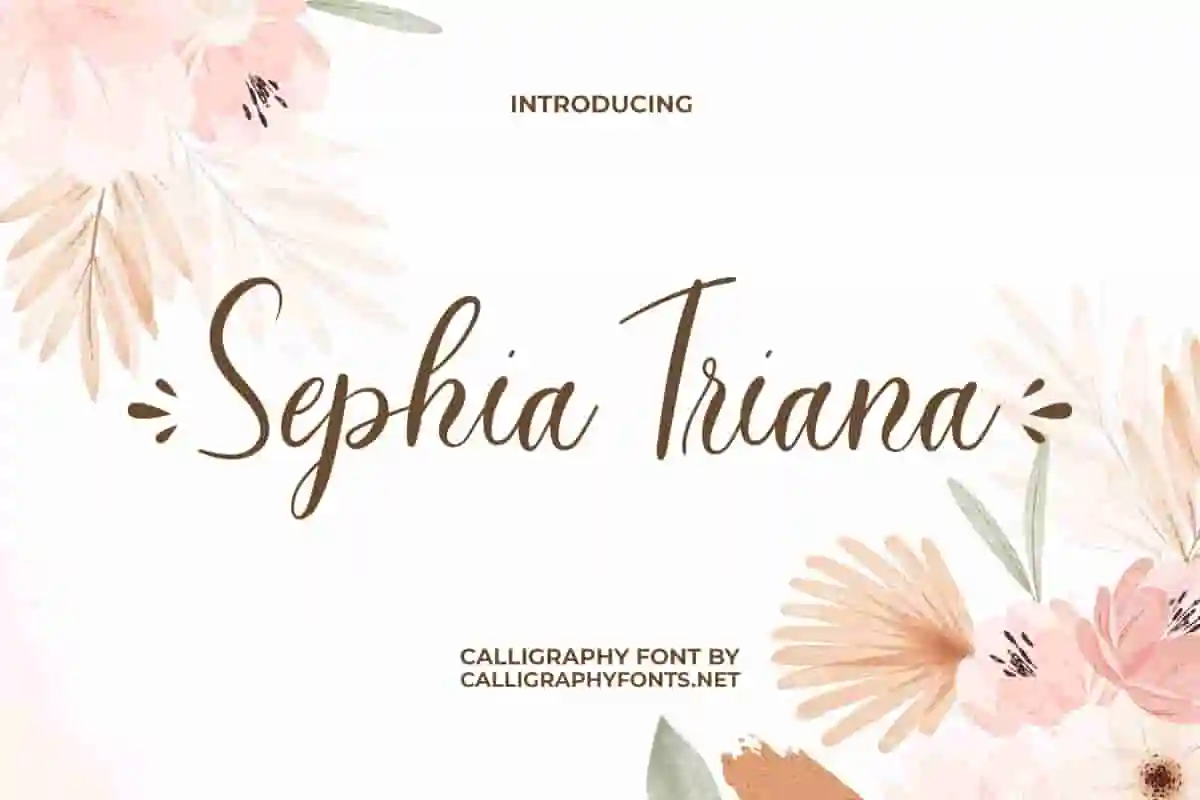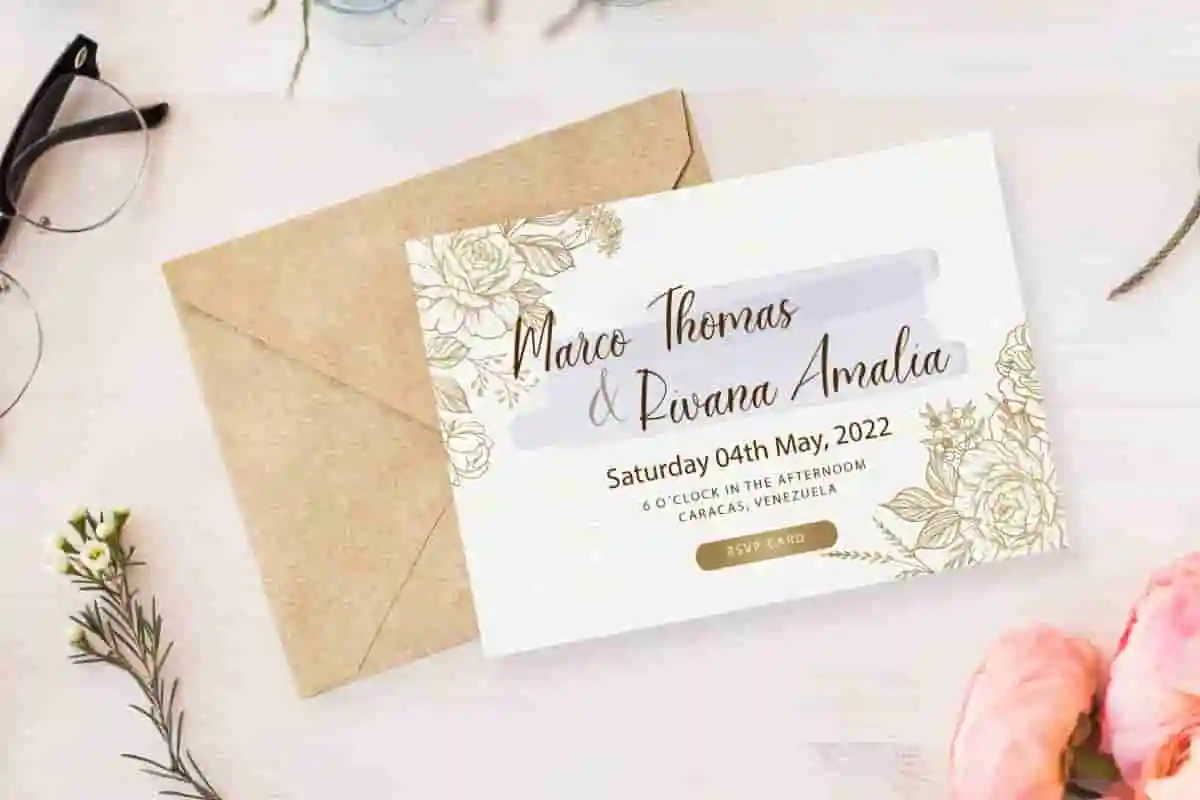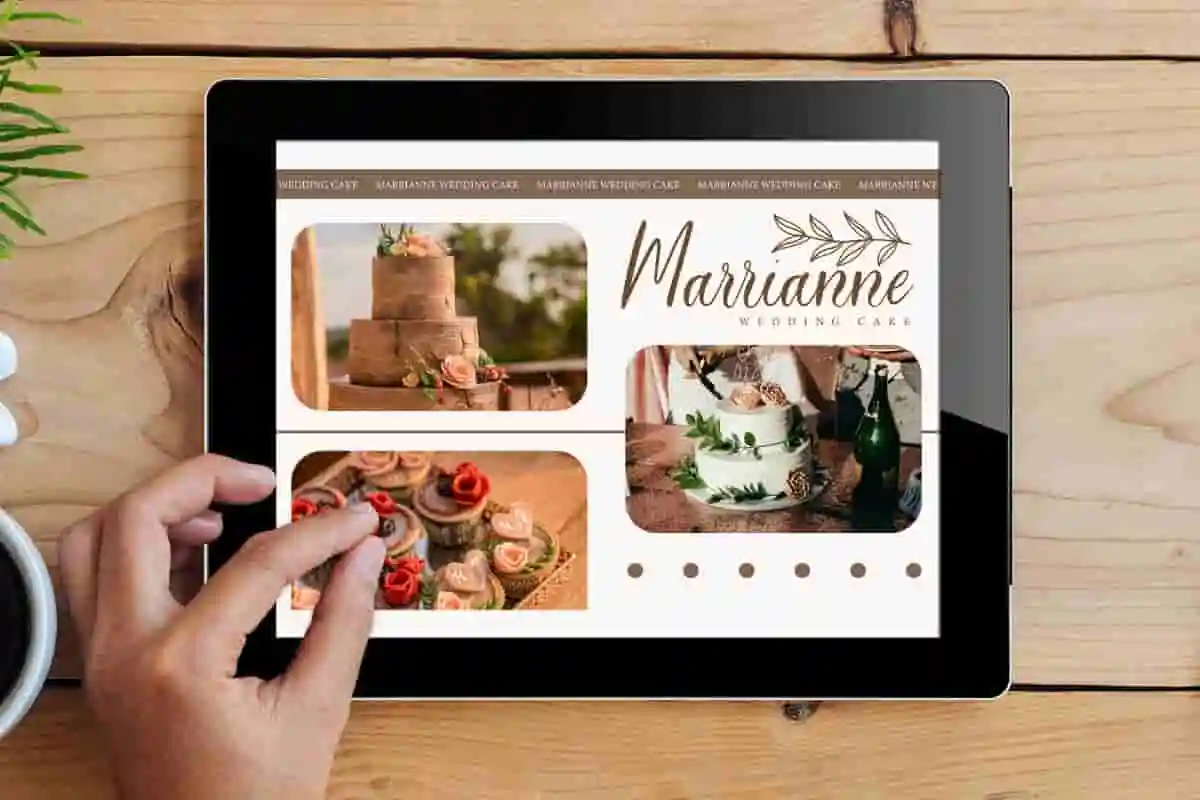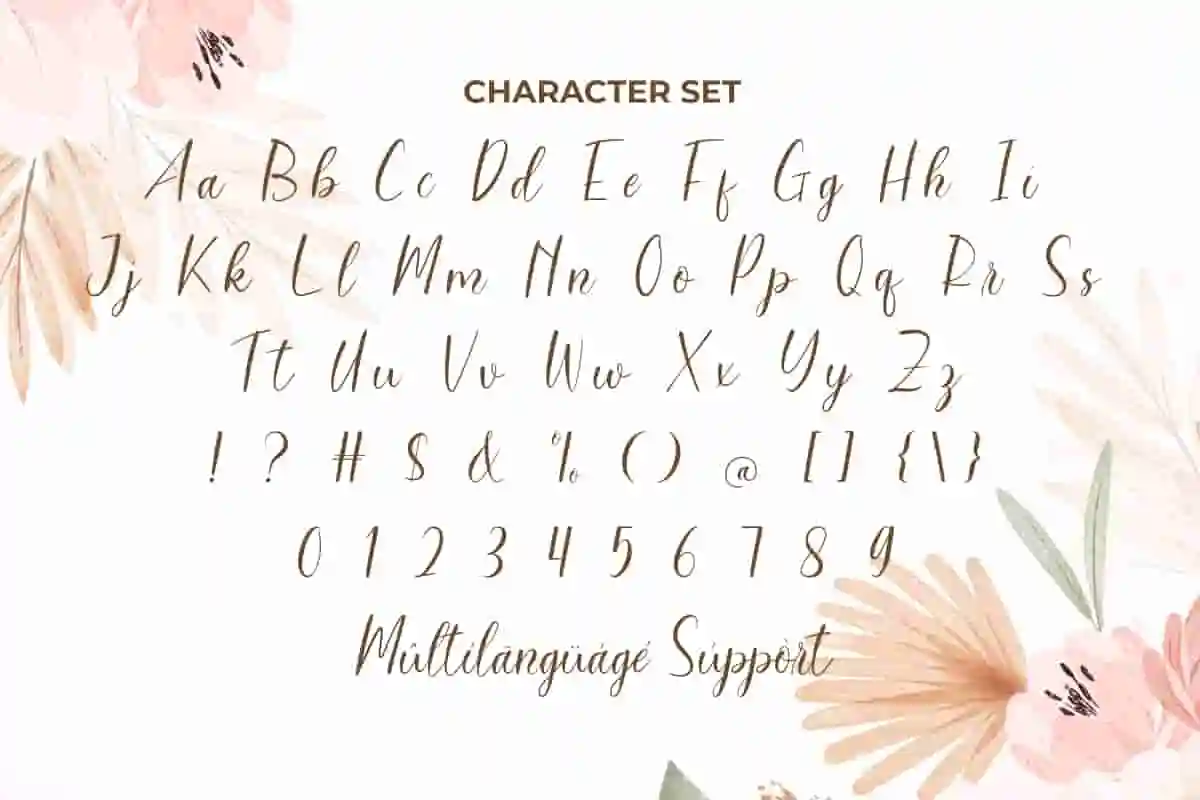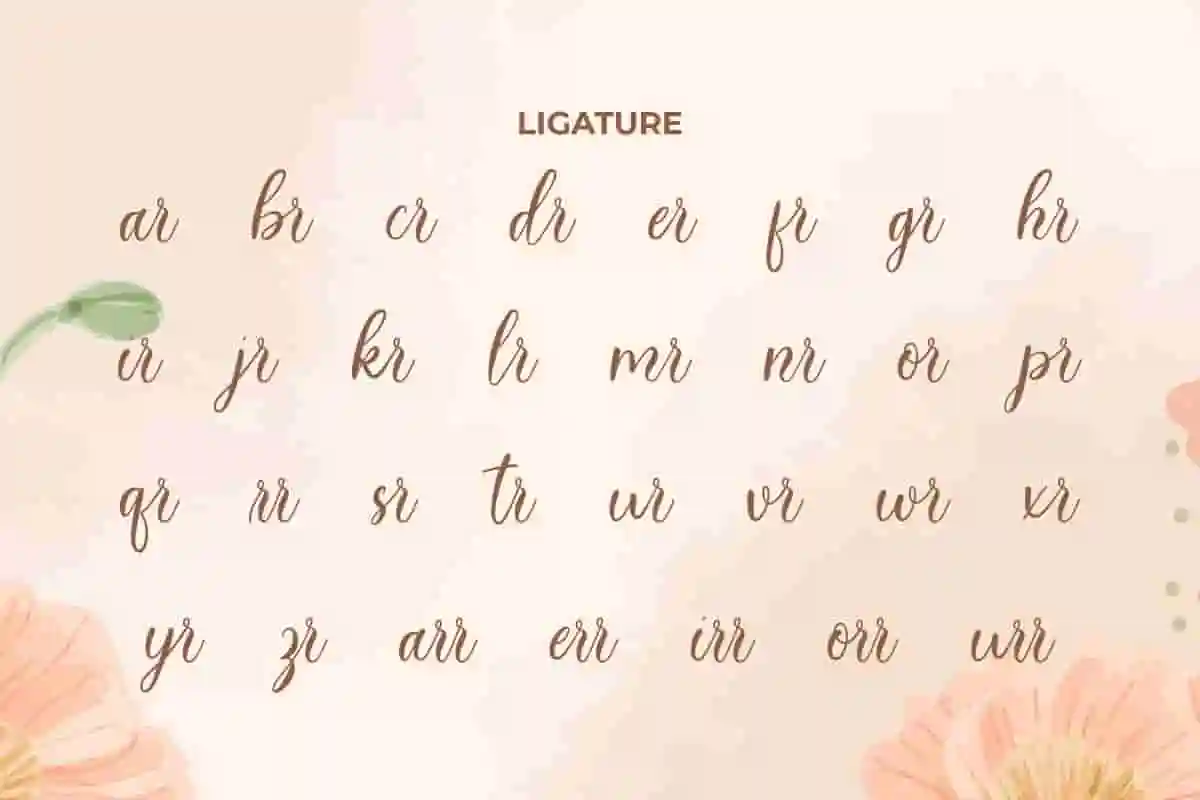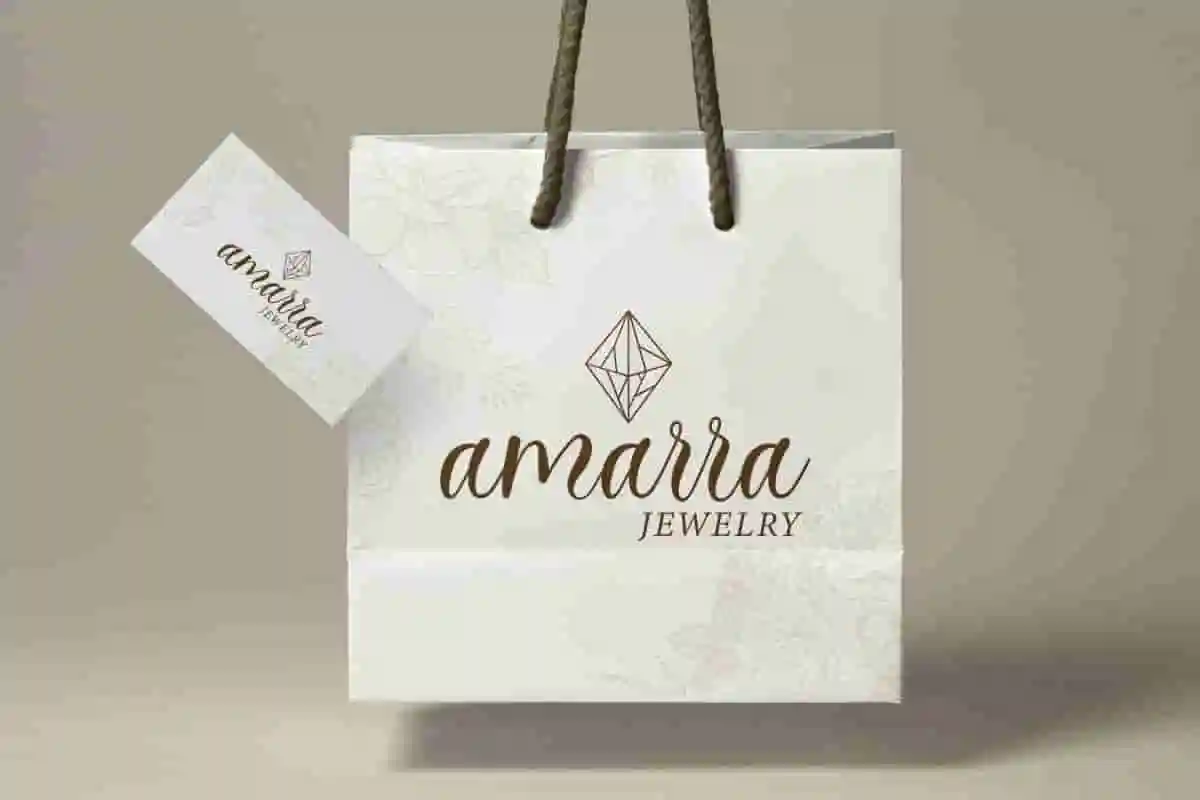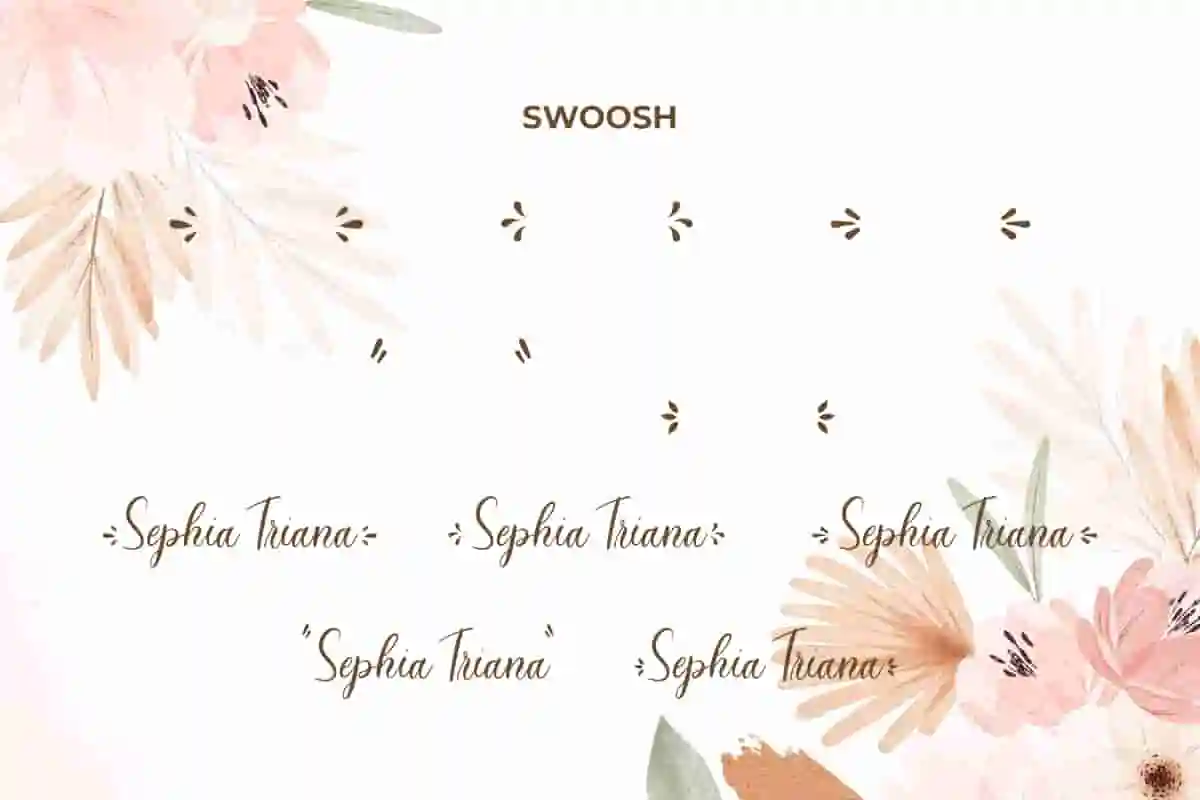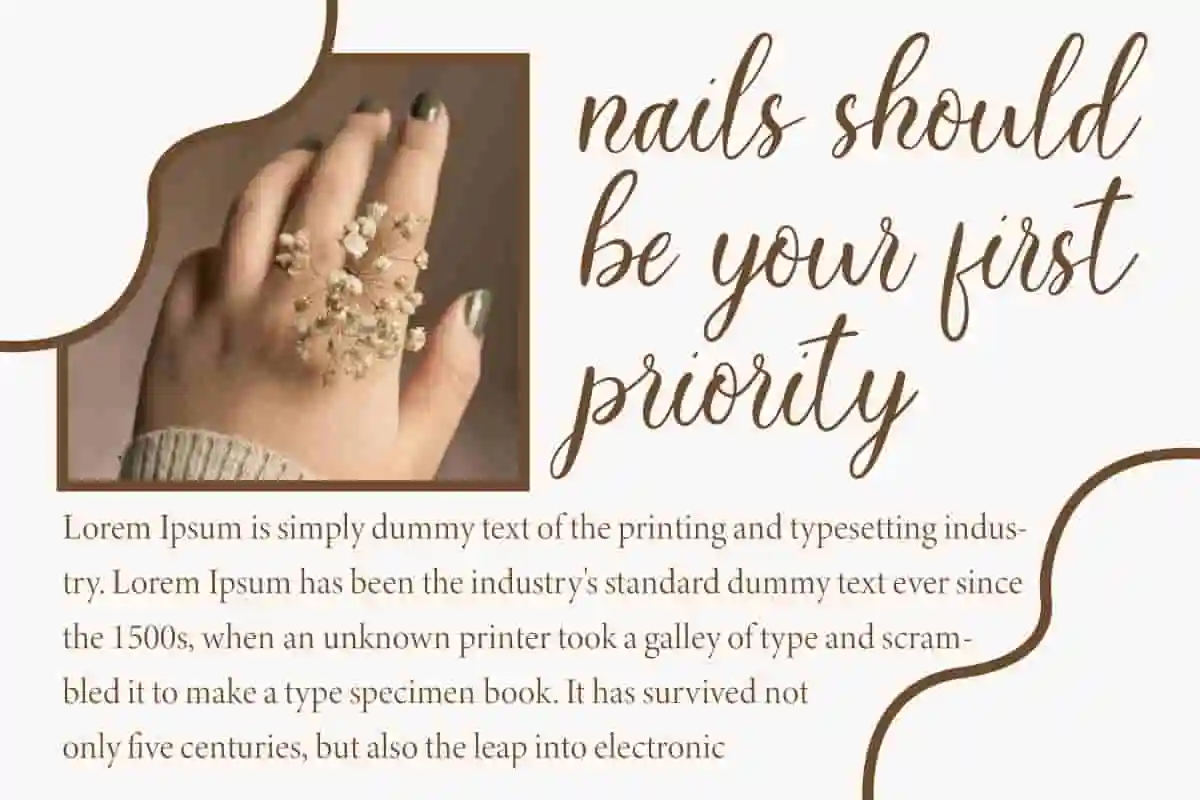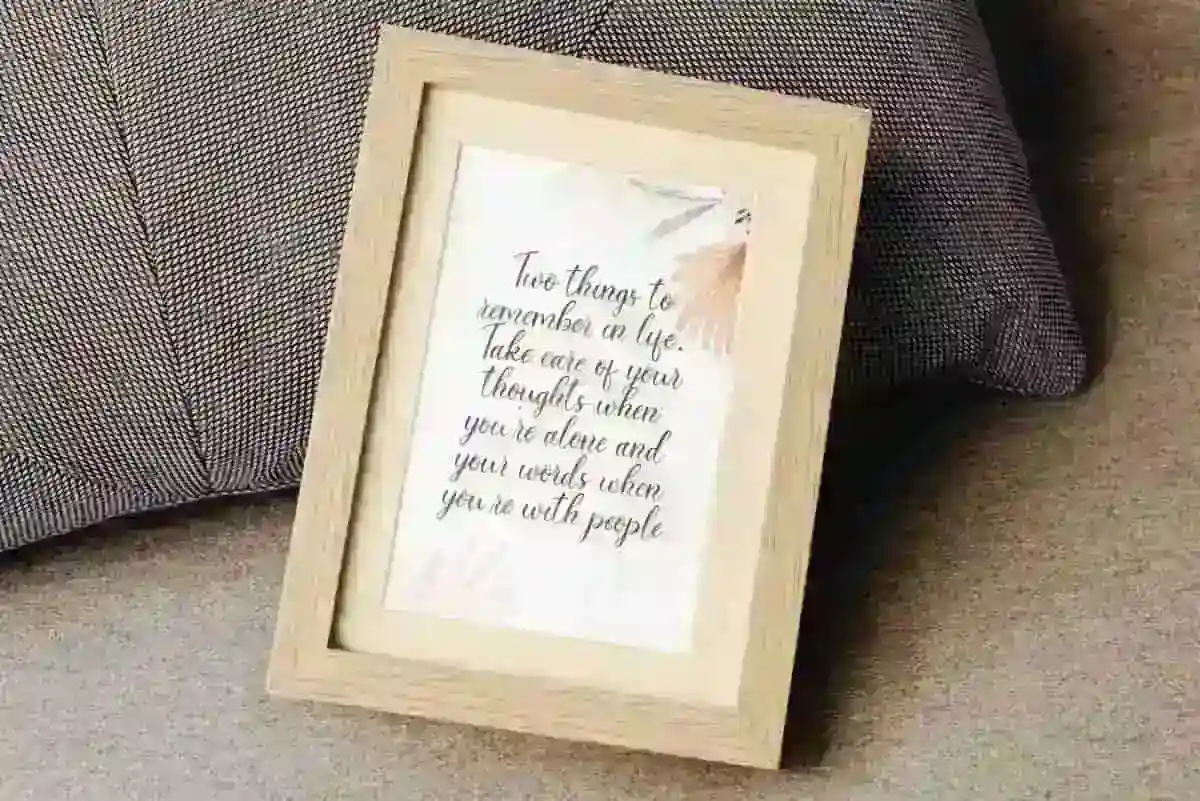
Sephia Triana Font
Sephia Triana Font is a charming calligraphy font with unique ligatures and swooshes. With thin to thick contrast lines and elegant curves. It is a perfect font for logos and display purposes.
Sephia Triana Font is an elegant calligraphy font with a very luxurious appeal, the design is modern and trendy, the thick and thin curves are very beautiful, making this font not boring and can attract attention in any design. It will be perfect for your next design, such as blogs, brand logo, card designs, covers, headers, invitations, labels, product packaging, template, text art on background, titles, websites, and much more.
Typography has the power to set the tone of your design, and with Sephia Triana Calligraphy Font, you can infuse every project with elegance, romance, and artistic beauty. This graceful calligraphy font is crafted to bring a handwritten charm while maintaining a polished, professional look.
Featuring flowing curves, delicate swashes, and stylish letterforms, Sephia Triana Calligraphy Font is the perfect choice for wedding invitations, branding, event stationery, product packaging, greeting cards, and luxury logos. Its unique calligraphic style combines sophistication with warmth, making your words feel personal and unforgettable.
In a competitive design world, it’s the details that set your work apart. Sephia Triana Calligraphy Font is more than just a typeface—it’s a creative expression that transforms ordinary text into extraordinary art. Its timeless beauty makes it especially suited for brides, event planners, luxury brands, and creatives who want to leave a lasting impression.
Whether you’re designing a romantic wedding suite, crafting elegant branding, or creating stylish social media content, Sephia Triana is your go-to font for graceful typography.
Sephia Triana Calligraphy Font is a casual calligraphy font that comes with beautiful ligatures and an attractive swoosh. Combining several characters makes this typography look perfect. This allows you to create any look that feels alive for your projects, such as bakery, confectionery, event organizer, graphic design, jewelry, nail beautician, printing, publishing, spa salon, sweetshop, wedding, etc.